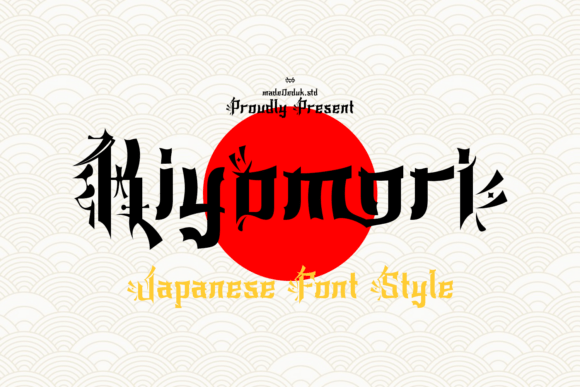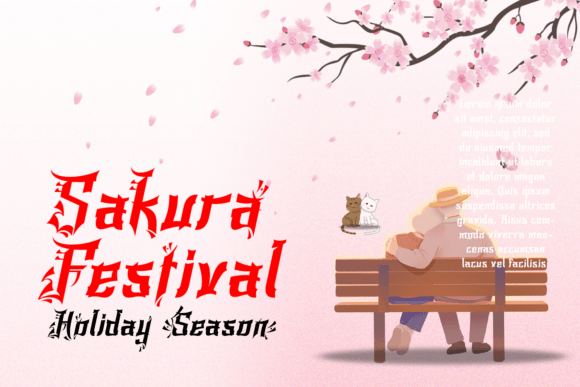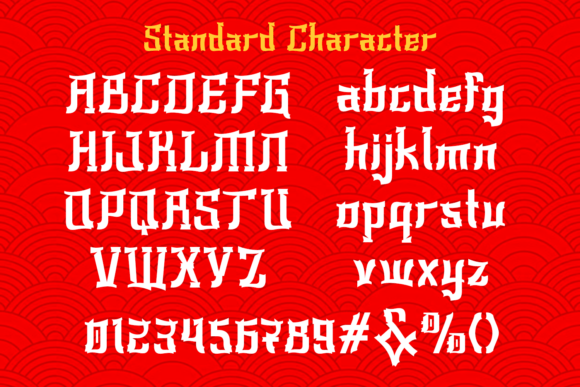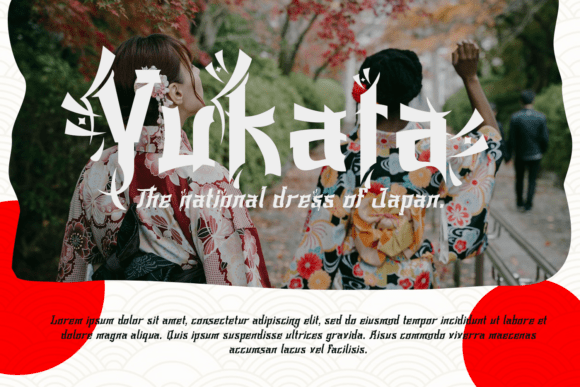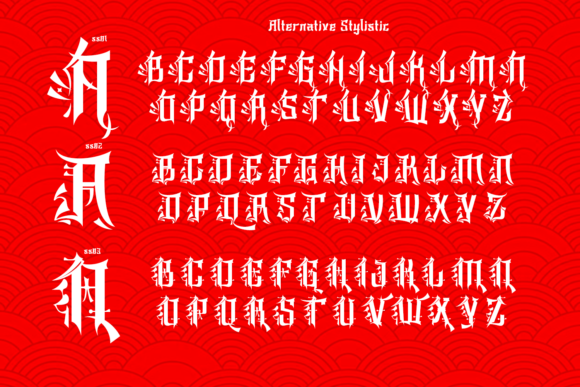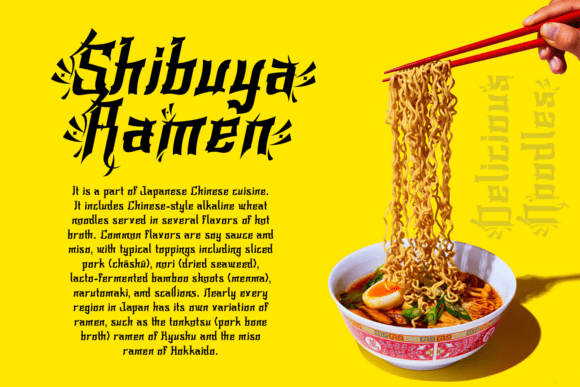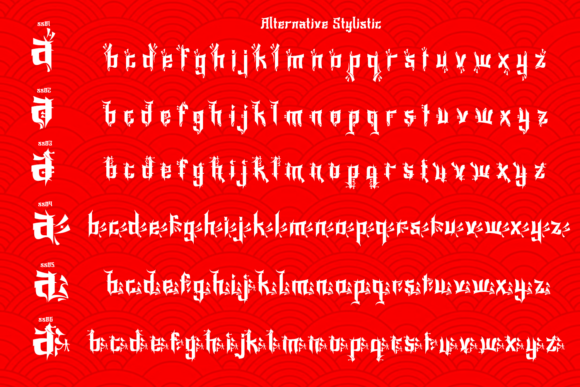
Discover the Power of Kiyomori Font
Imagine you’re strolling through a bustling Tokyo street market, surrounded by vibrant colors and eclectic designs. Suddenly, you stumble upon a striking poster that catches your eye – the bold, angular letters leap out at you, transporting you to a world of ancient samurai culture and timeless elegance. That’s the magic of Kiyomori Font, a typeface that embodies the spirit of Japan’s rich heritage and modern creative energy.
Designed to evoke the precision and drama of a katana blade, Kiyomori Font is a masterful blend of classic Japanese aesthetics and contemporary edge. Its sharp, pointed terminals and vertical structure make it a standout choice for designers seeking to create a bold, artistic presence in their work. Whether you’re crafting a traditional cultural poster or a modern streetwear brand, Kiyomori Font is the perfect tool to deliver a powerful visual identity that’s both dramatic and highly relevant.
Kiyomori Font Key Features
- Font Family: Kiyomori is a Japanese font designed for calligraphy and typography. It is a part of the Mincho font family.
- Character Set: Supports a wide range of Japanese characters, including Hiragana, Katakana, Kanji, and Latin characters.
- Font Size and Resolution: Designed to work at various font sizes, from 6 points to 72 points, and is optimized for resolutions up to 300 DPI.
- Unique Characteristics: Kiyomori features a traditional Japanese font style with a focus on elegance and sophistication, making it suitable for various applications such as calligraphy, typography, and graphic design.
Kiyomori Font Review
I recently had the chance to work with the Kiyomori font, and I must say it’s a unique and interesting choice for any design project. Here are my thoughts:
- Uniqueness: Kiyomori font stands out from the usual sans-serif and serif fonts. Its distinctive style makes it perfect for projects that require a touch of elegance and sophistication.
- Legibility: Despite its complex design, Kiyomori font is surprisingly legible, even at smaller font sizes.
- Character set: The font includes a wide range of characters, including Latin, Cyrillic, and Japanese scripts.
- Complexity: The intricate design of Kiyomori font can make it difficult to work with, especially for beginners.
- Limited font sizes: While the font is legible at smaller sizes, it’s not ideal for very large or very small font sizes.
- System compatibility: Kiyomori font may not be fully compatible with all operating systems, which can cause display issues.
Overall, I think Kiyomori font is a great choice for projects that require a touch of sophistication and elegance. However, its complexity and limited font sizes make it less suitable for general use. With some practice and patience, designers can master the Kiyomori font and achieve stunning results.
Tips: Use Kiyomori Font for headings and titles to add a touch of elegance and sophistication to your design. Experiment with different font sizes and styles to create visual interest.
Tips: Use Kiyomori Font for creative projects, such as typography-based art or illustrations. Experiment with layer blending modes and effects to add depth and interest to your design.
Tips: Use Kiyomori Font for presentations and reports to add a touch of professionalism and sophistication. Experiment with different font sizes and styles to create visual interest.
Kiyomori Font is suitable for a variety of design projects, including:
- Typography-based art and illustrations
Tips: Use Kiyomori Font to add a touch of